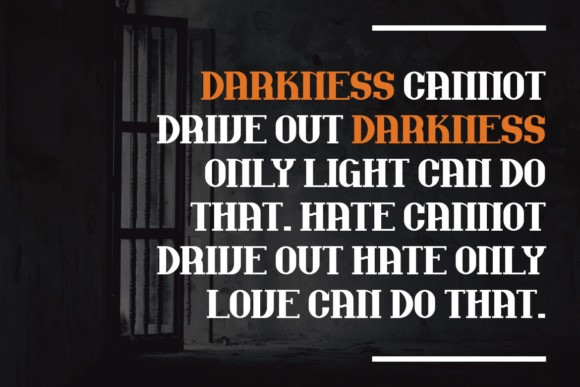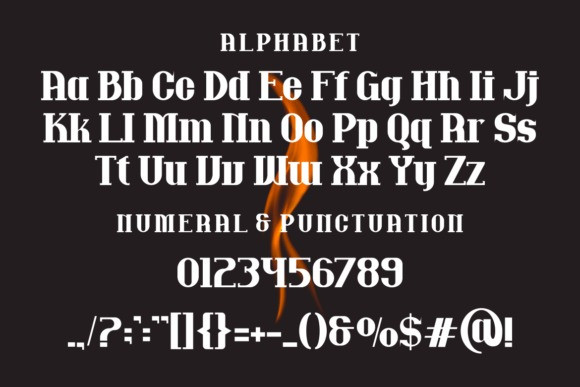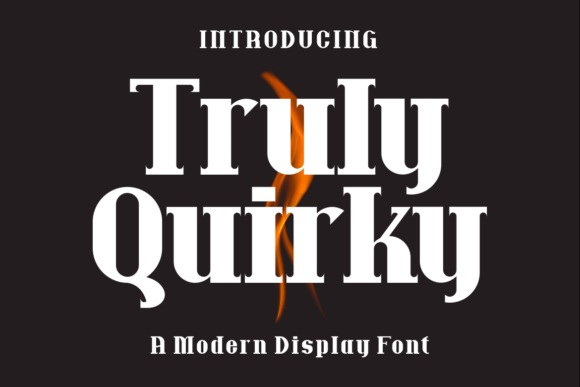
Truly Quirky Font
Truly Quirky Font is a display font with sleek lines and a contemporary aesthetic. Perfect for making a bold statement in headlines, logos, and branding materials. This font combines elegant curves and sharp edges for a unique look that stands out from the crowd.